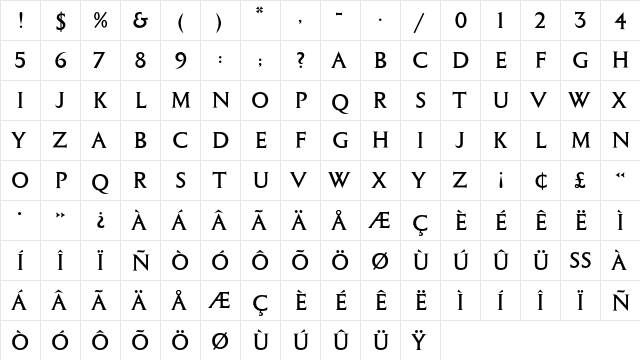
ColumnaEF Solid
Design Context for ColumnaEF Typeface
ColumnaEF is a composed and adaptable typeface that performs quietly and consistently across a wide range of design contexts.